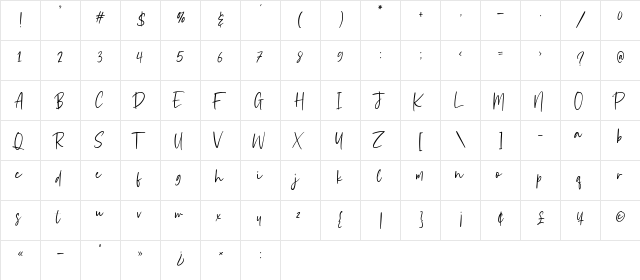
Scholastica Regular
Design Context for Scholastica Typeface
Scholastica is a composed and adaptable typeface that performs quietly and consistently across a wide range of design contexts.